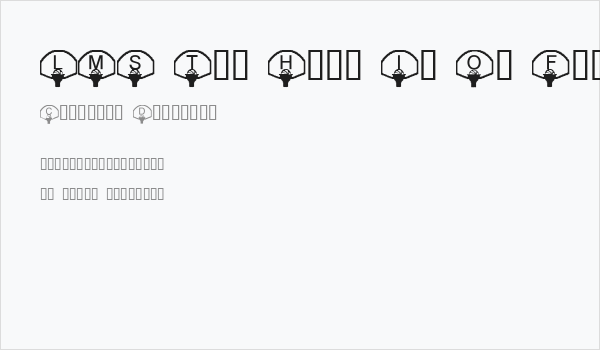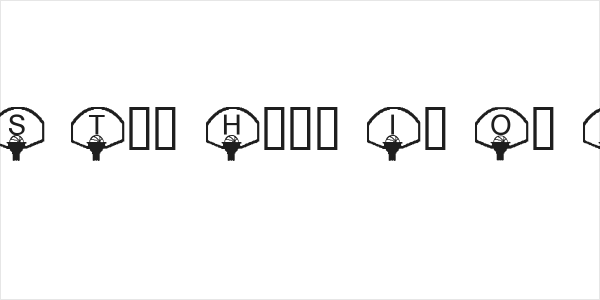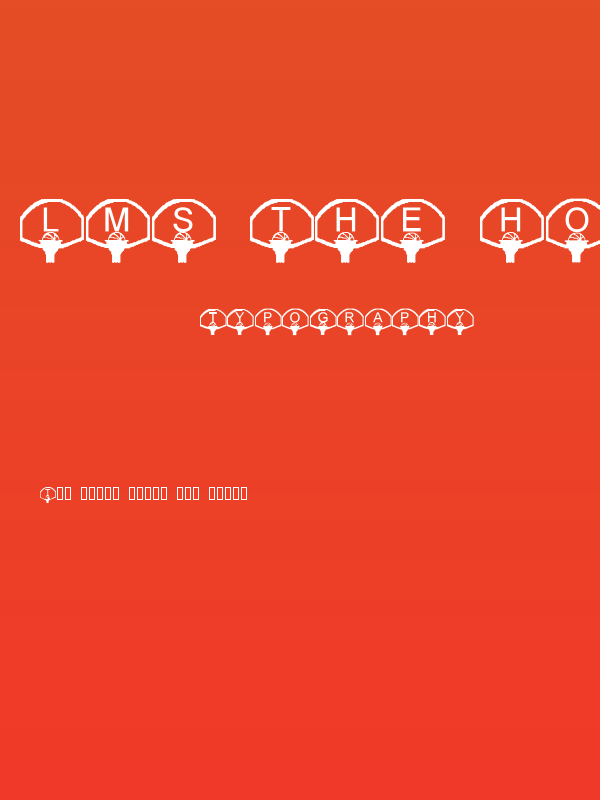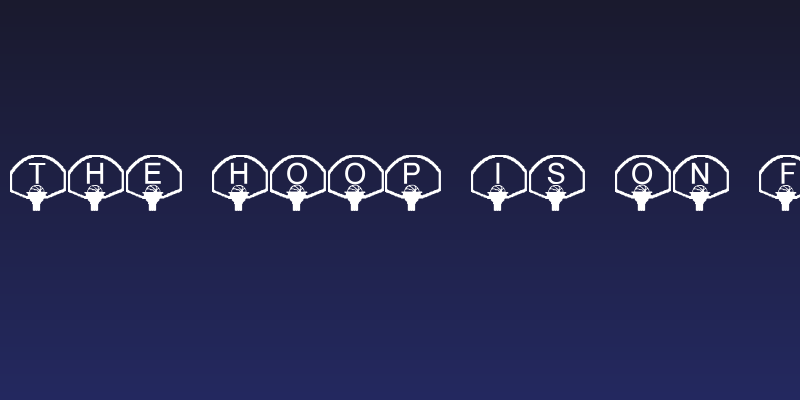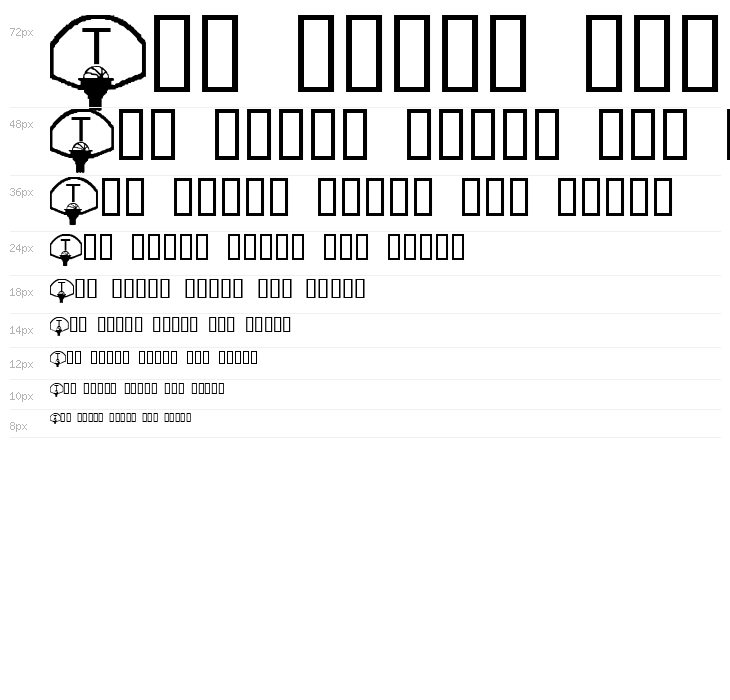
LMS The Hoop Is On Fire Font
LMS The Hoop Is On Fire Description
This font features a unique and playful design where each letter is encased within a basketball hoop, complete with a backboard and net. The letters are bold and clear, making them easily readable despite the decorative elements. The design is consistent across all characters, maintaining a uniform appearance that is both eye-catching and thematic. This font is ideal for sports-related projects, particularly those involving basketball, as it captures the essence of the game in a fun and engaging way.
| Proposed Projects | Ideal for sports event posters, basketball team logos, themed merchandise, and playful sports-related branding. |